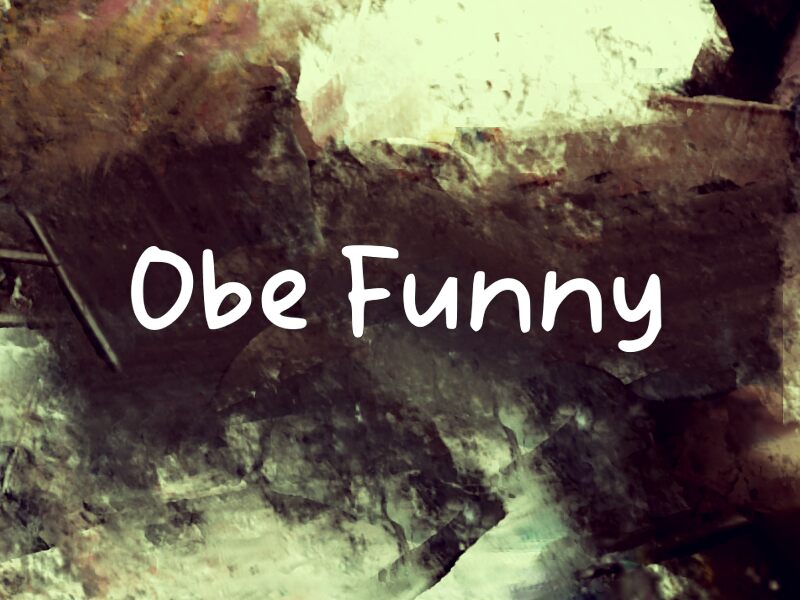
Obe Funny font by wep is a funny, unique, casual, playful, and friendly handwritten typeface with a modern style that can only be described as organic and relaxed. It features playful letterforms that stand out with their quirky vibe that can be noticed at first glance while being clear and easy to read. This free font is therefore great for casual and informal use, adding that friendly fun factor.
Use this free font for kids and entertainment-related content or for branding and advertising use. Logos, posters, packaging designs, books, stationery designs, magazine covers, and social media covers are a few areas of use. Invitation cards, business cards, and typography quotes are some other useful applications of Obe Funny.
Obe Funny is a delightful free font that adds a playful touch to any project. With its quirky design and unique character, this font is perfect for creative works, children's materials, and lighthearted branding.